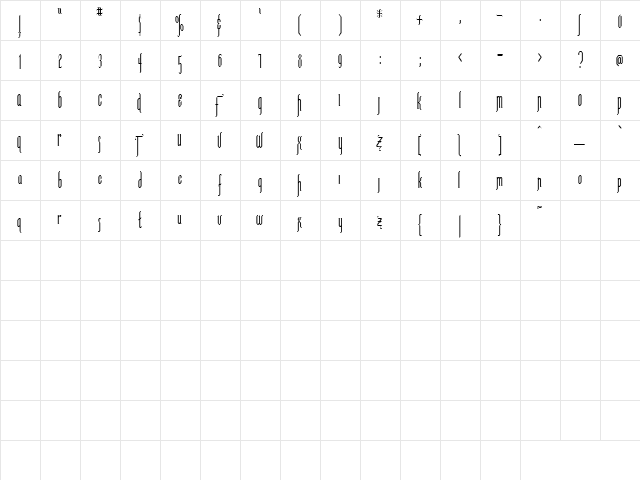
Christine 5 Regular
Design Context for Christine 5 Typeface
Christine 5 is a composed and adaptable typeface that performs quietly and consistently across a wide range of design contexts.